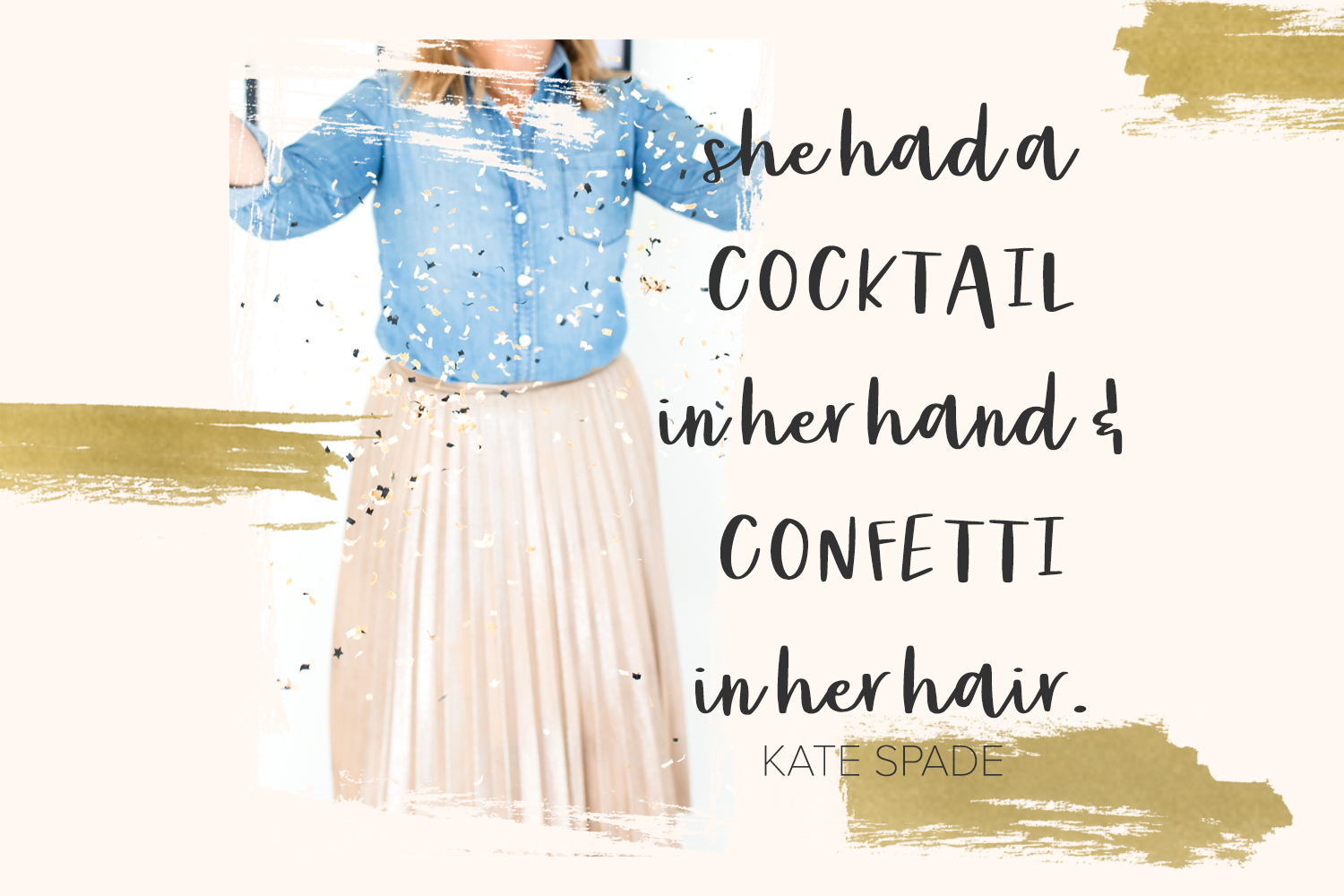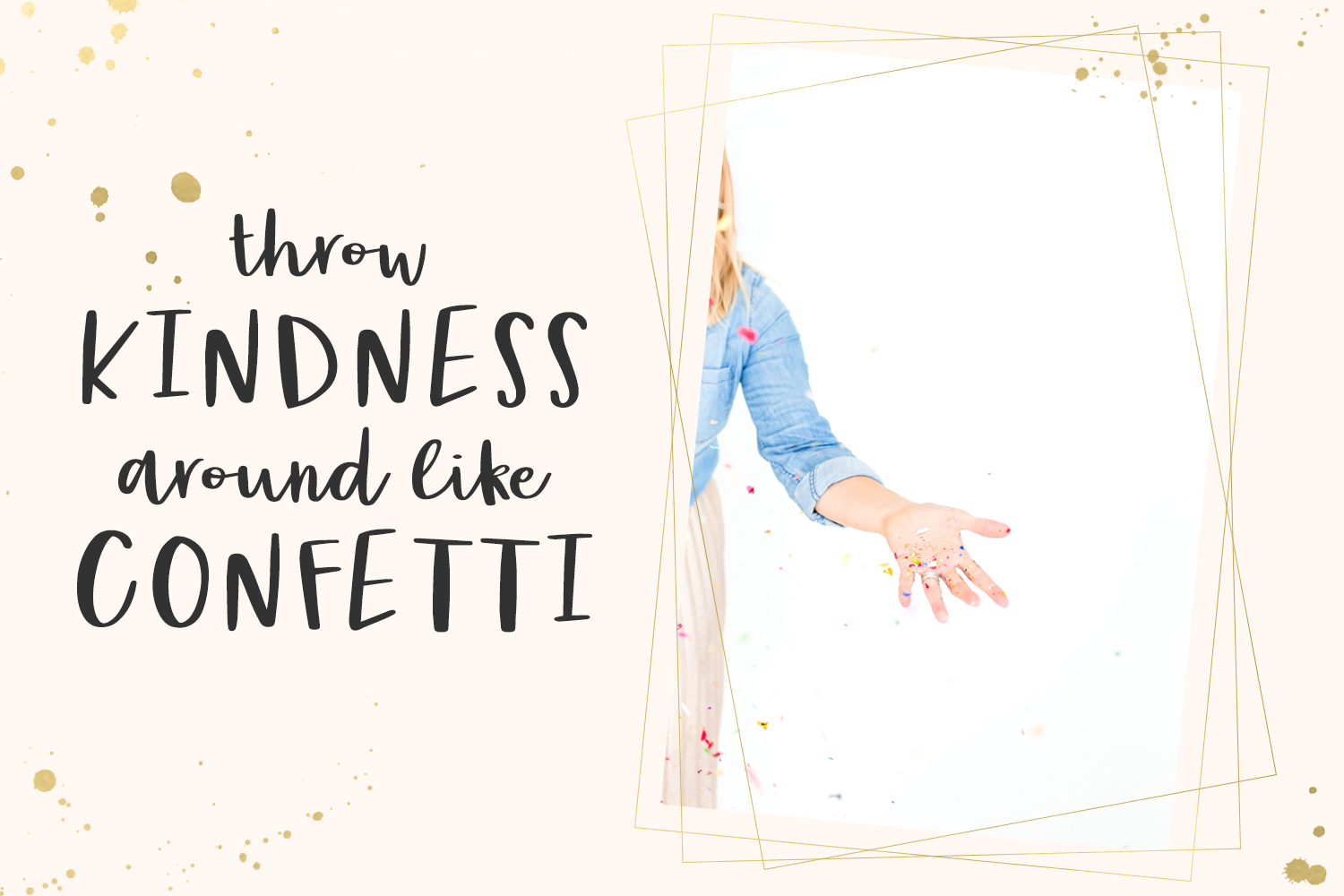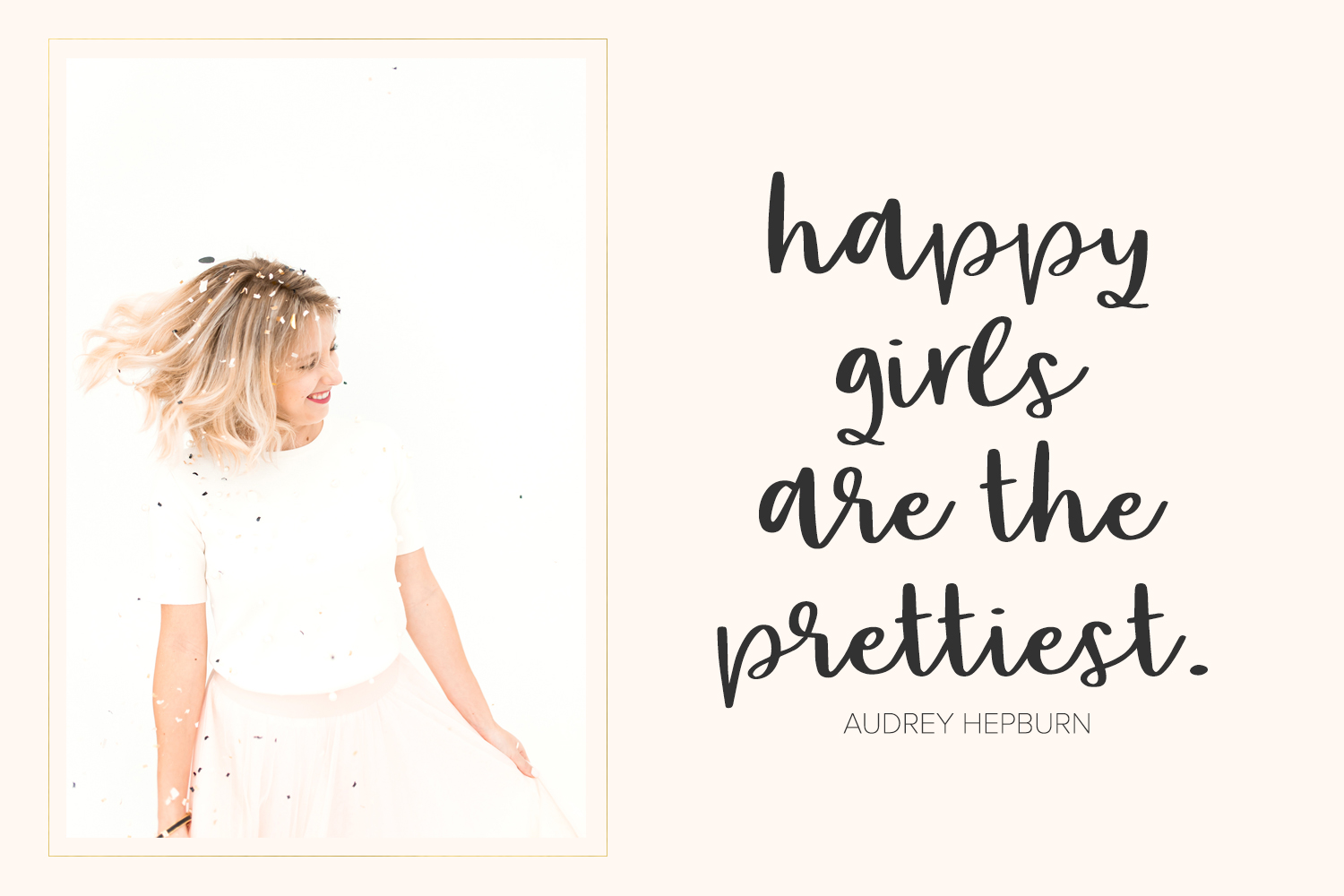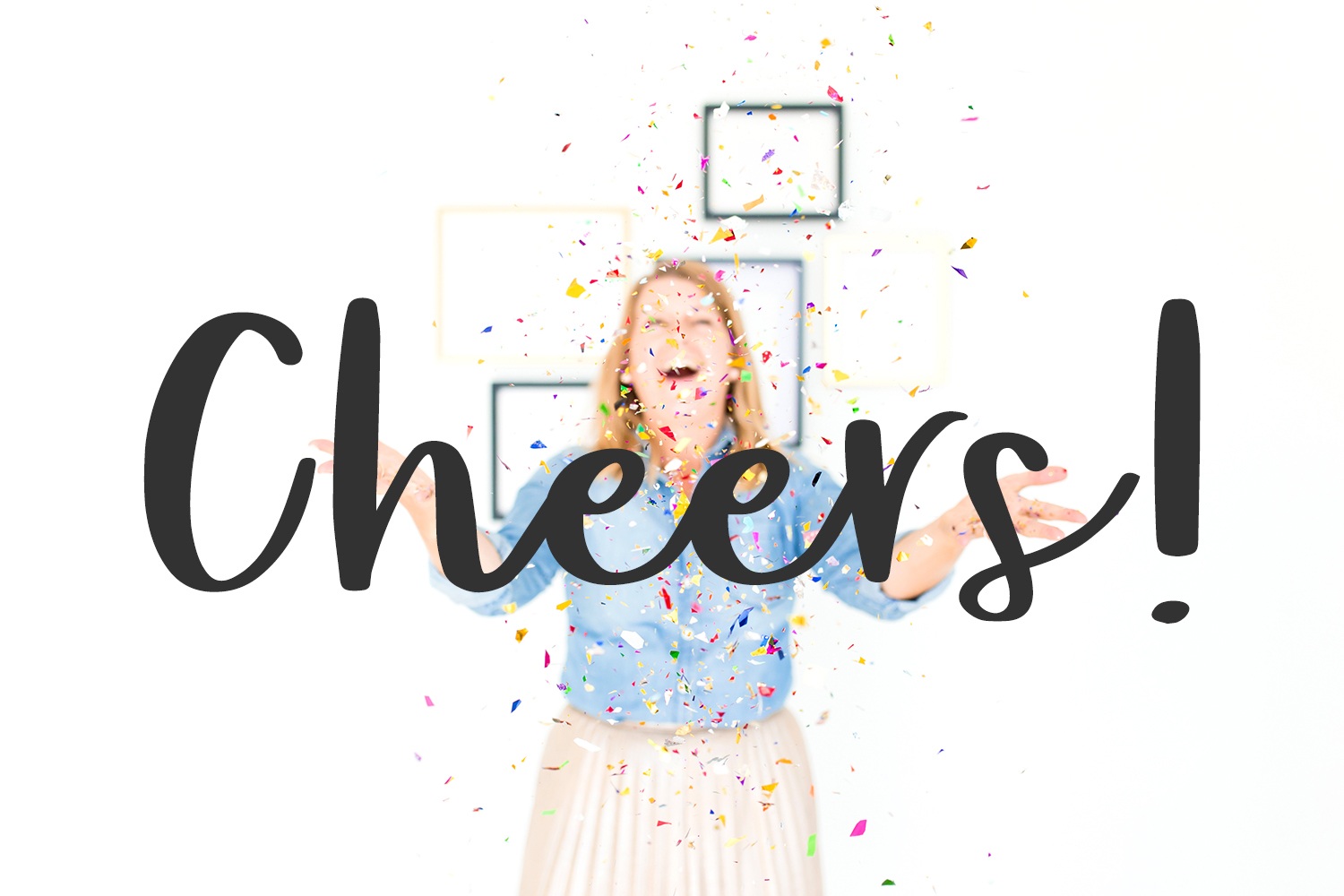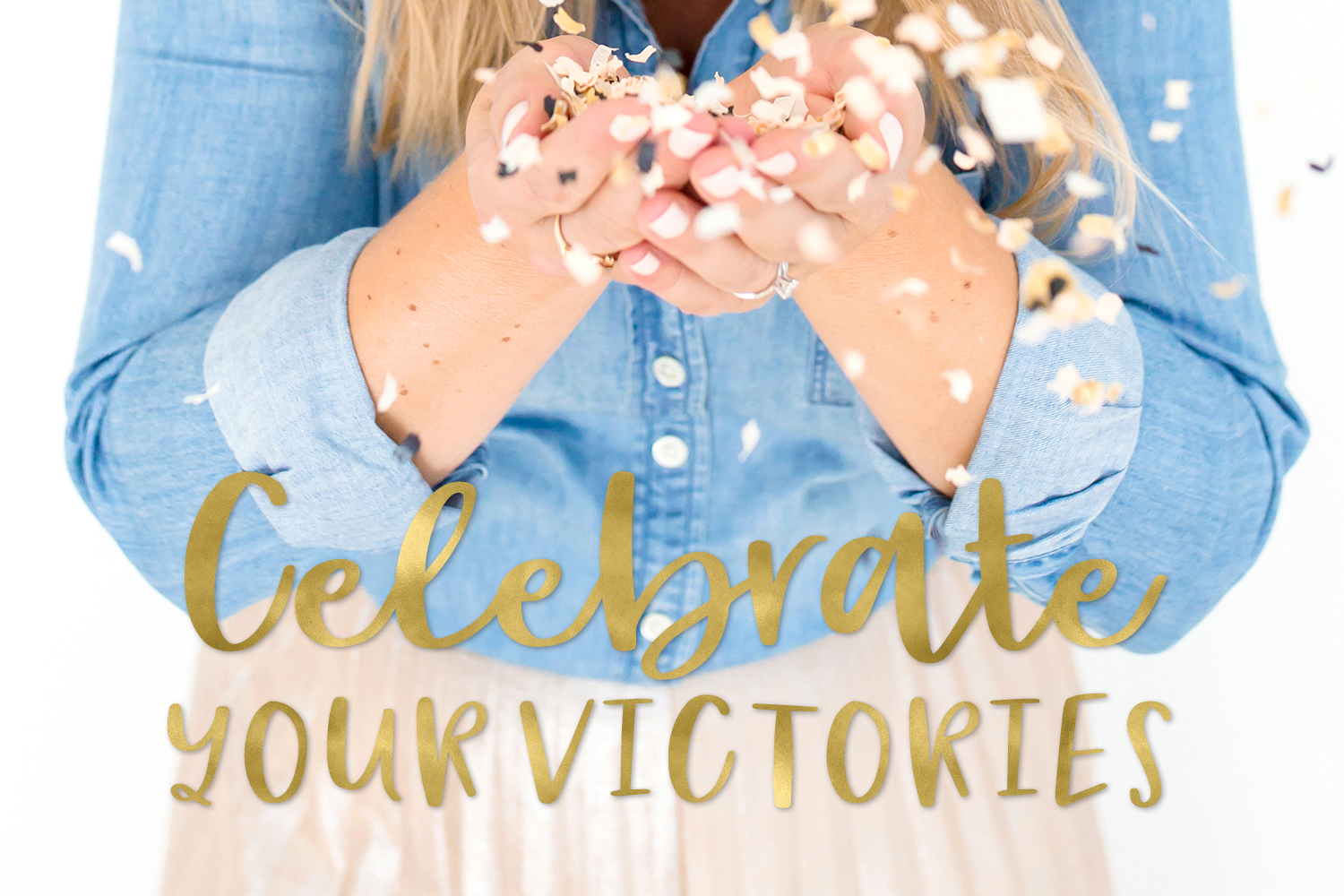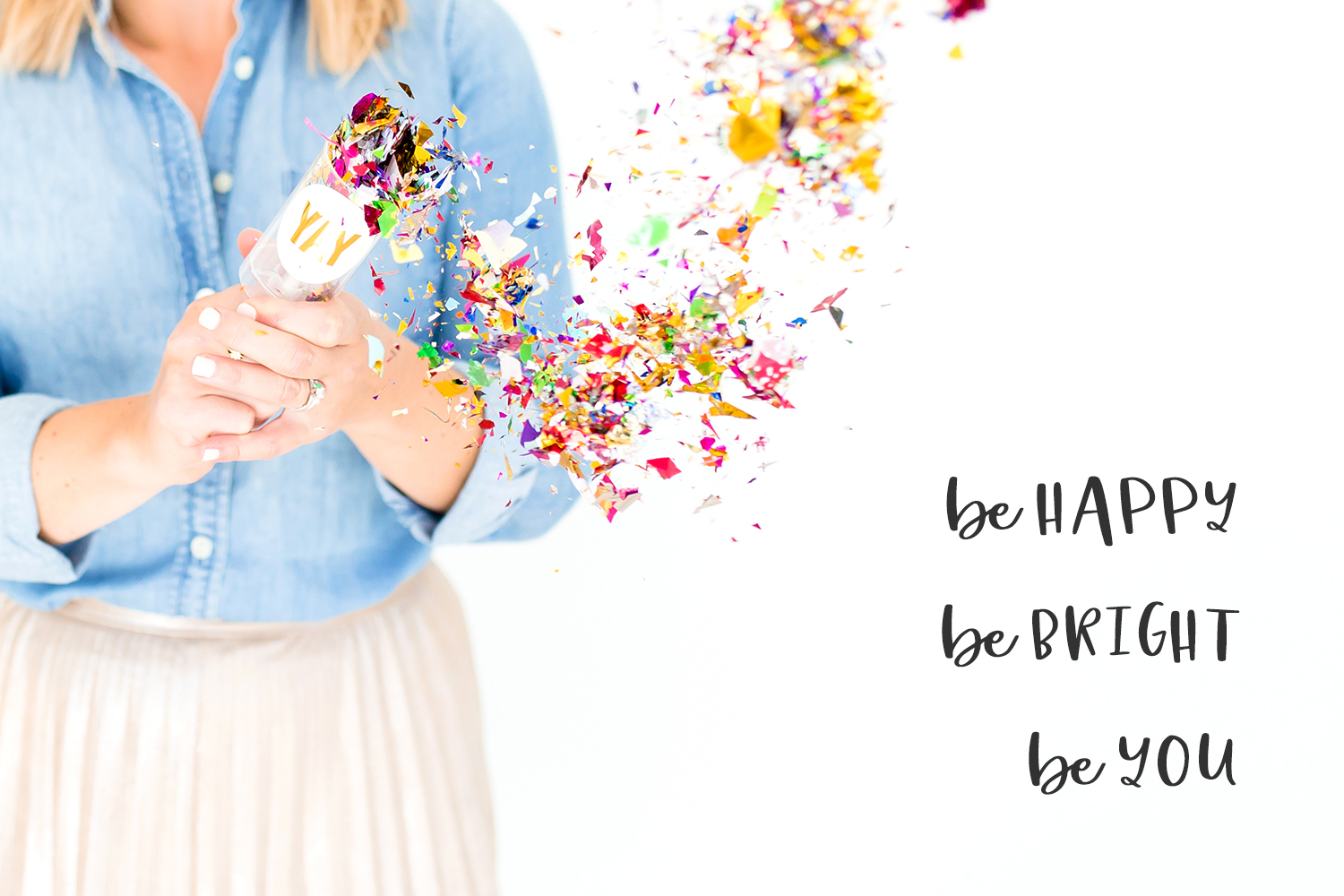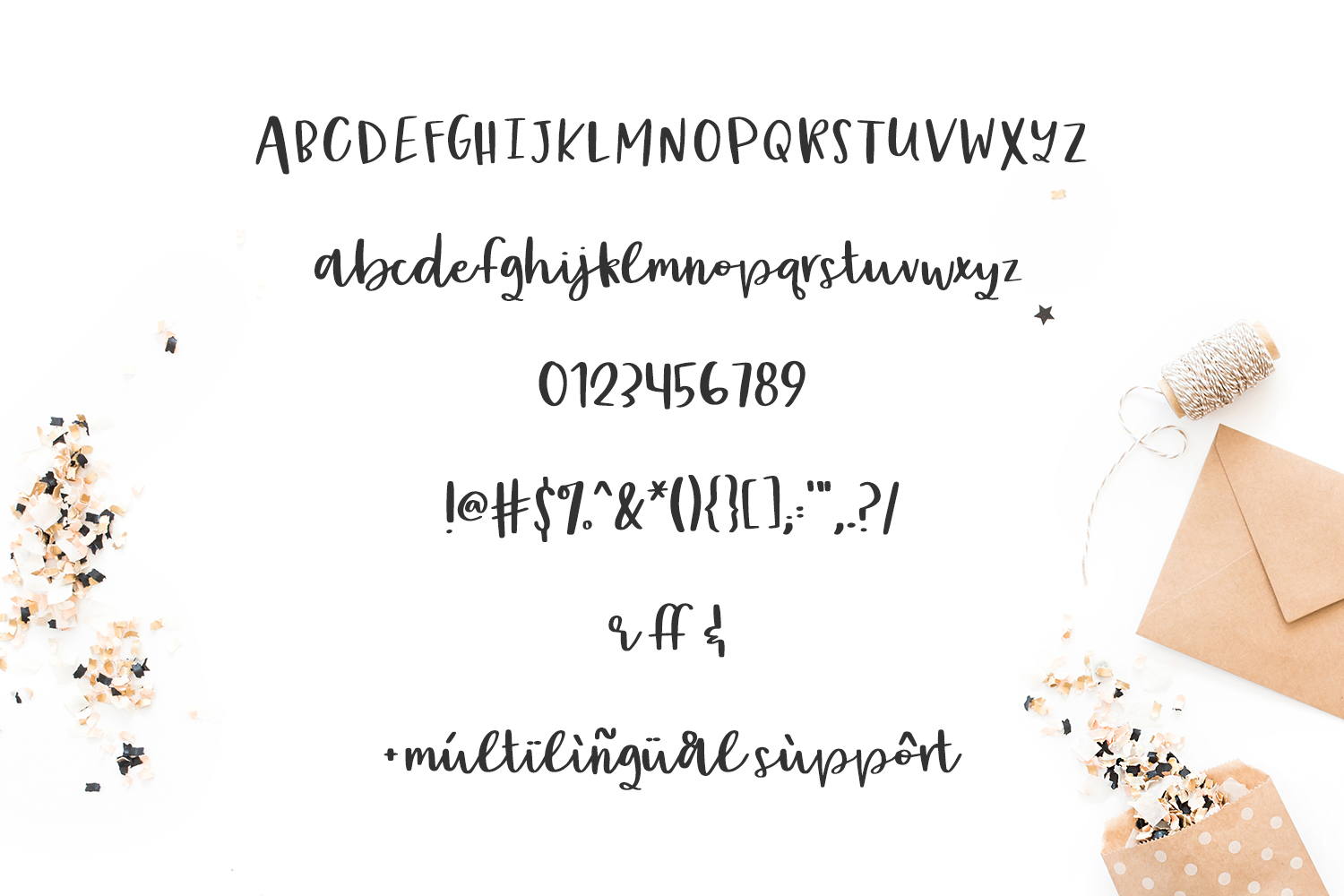
Party Dress Font
About Party Dress Font
Party Dress is the perfect happy-go-lucky font, suitable for ever celebratory occasion imaginable! This font features clean, easy to read lettering that looks great in a large combination of styles.